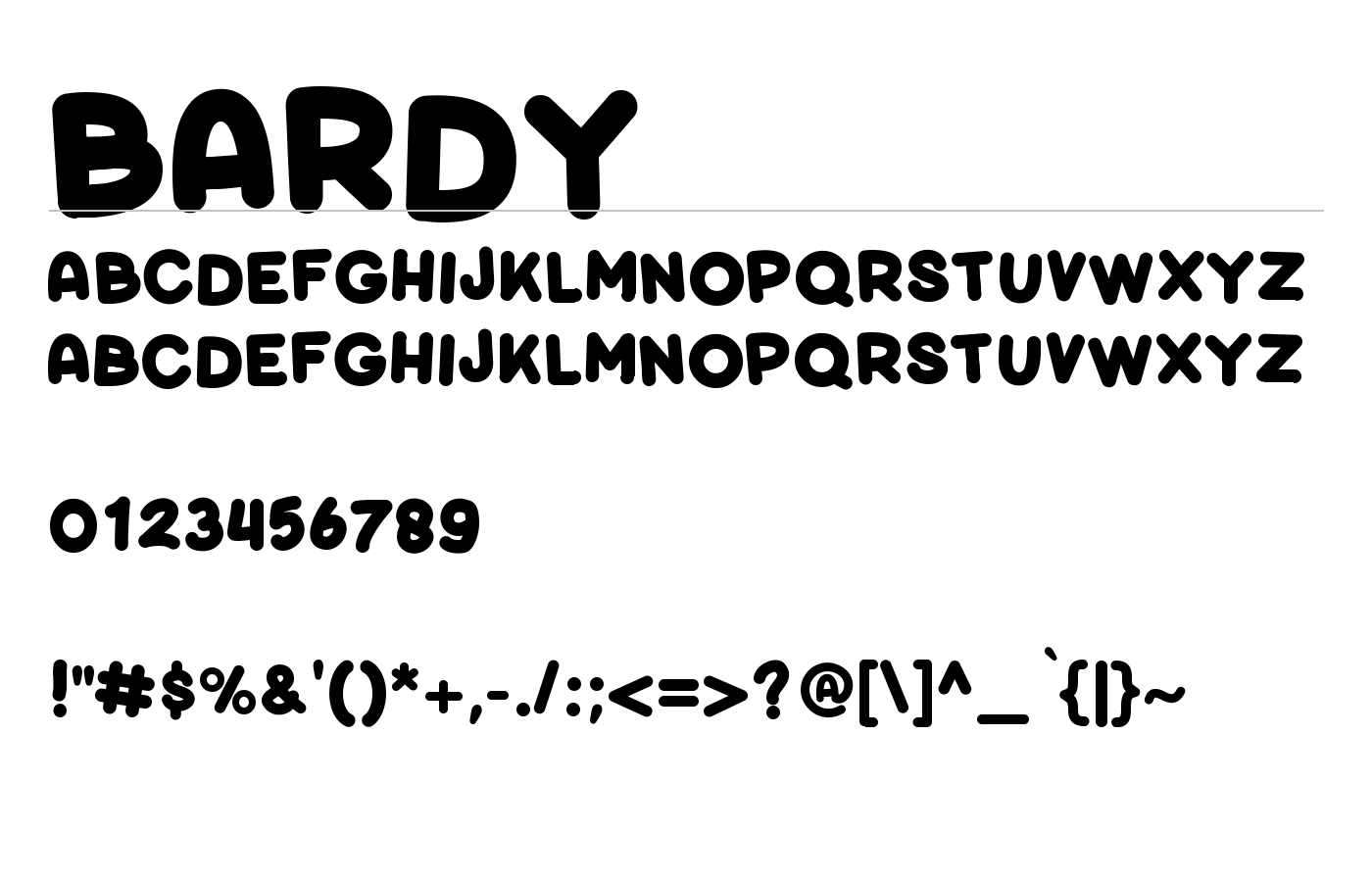
Bardy is a bold, rounded sans serif font with a friendly and playful character, featuring thick strokes and uniform width that create a warm and approachable feel. Its large x-height and slightly condensed letterforms make it highly legible, perfect for children's books, casual branding, and fun headlines. This font works well where a cheerful and informal tone is needed to engage and attract attention.
Bardy Font
About Bardy Font